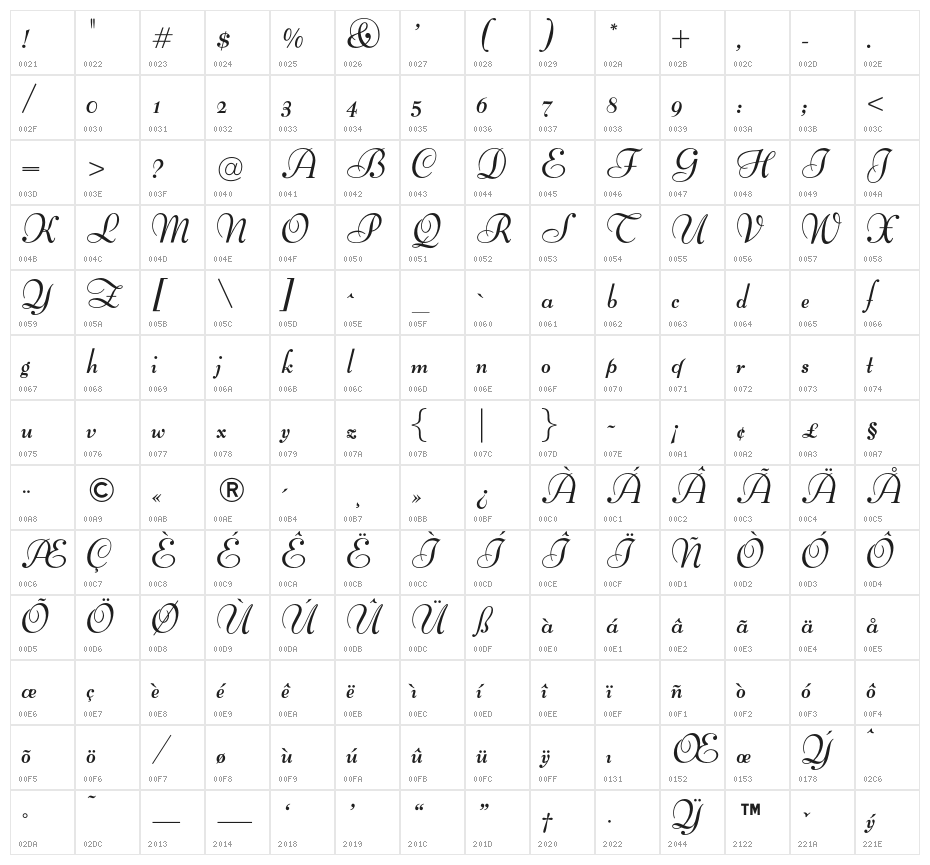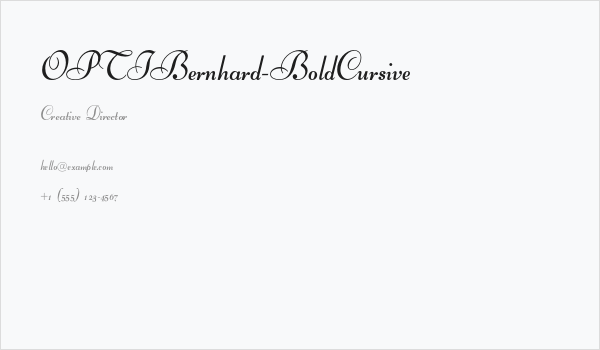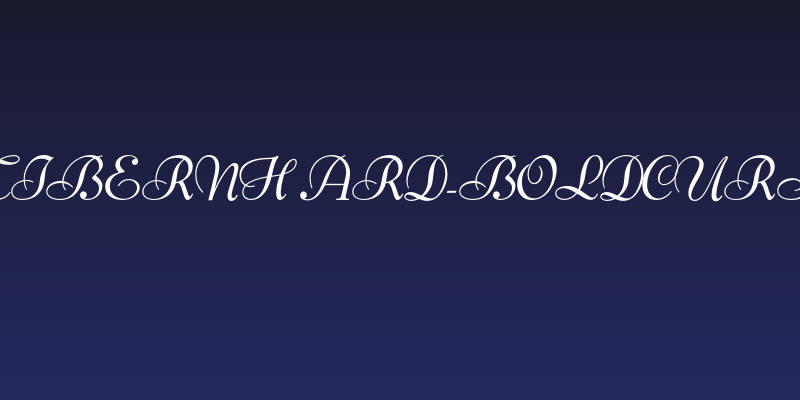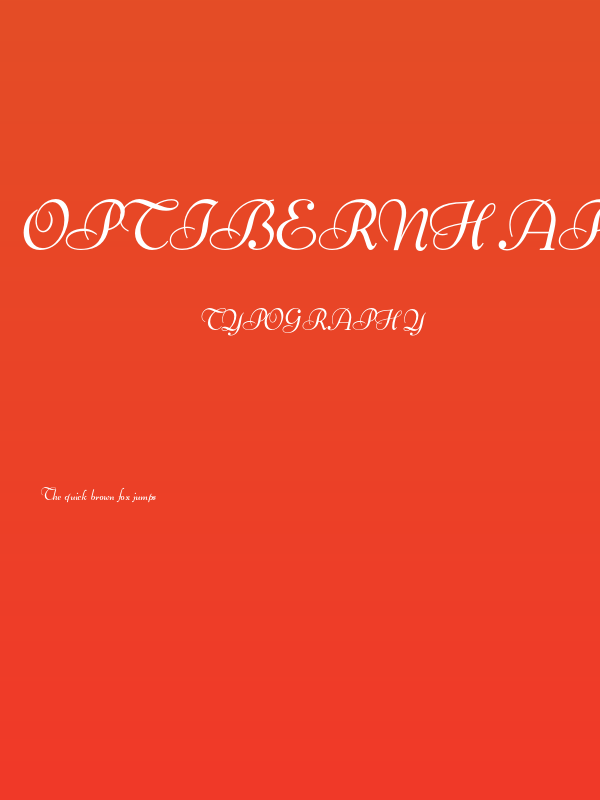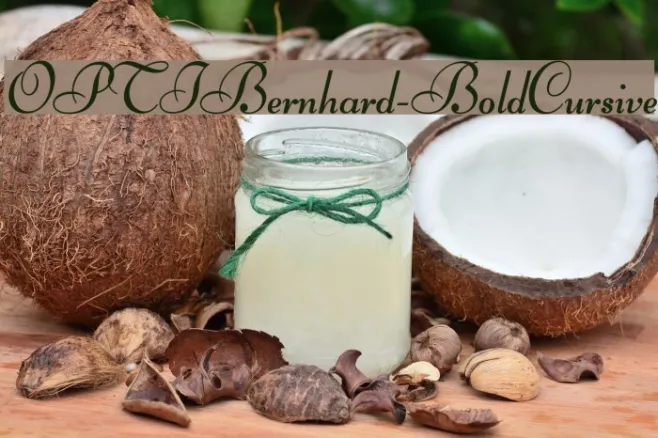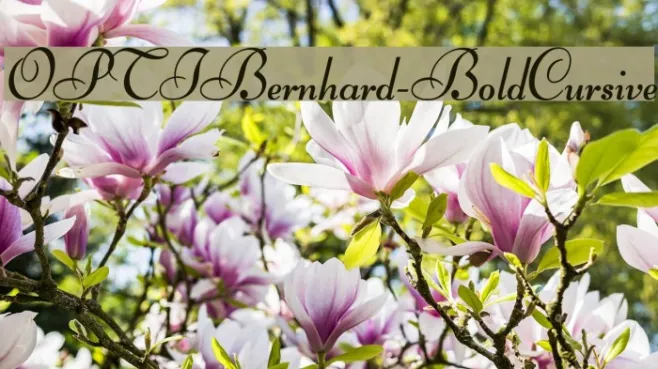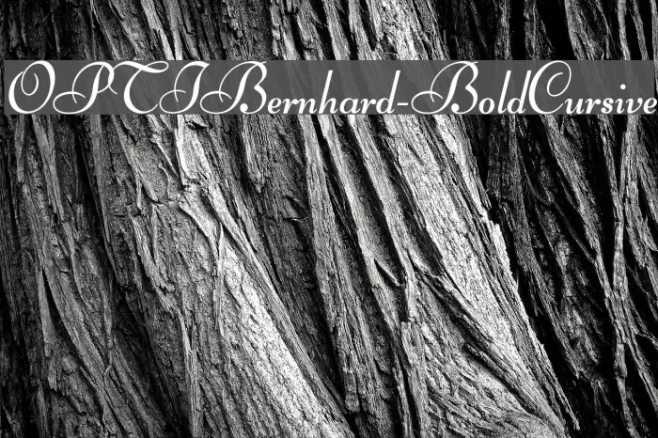
OPTIBernhard-BoldCursive Font
OPTIBernhard-BoldCursive Description
This elegant cursive font features a flowing, script-like style with a bold presence. The uppercase letters are characterized by their intricate loops and swirls, giving them a sophisticated and decorative appearance. The lowercase letters maintain a consistent flow, with smooth connections between characters, enhancing readability while preserving the font's ornate nature. The numerals are styled to match the cursive theme, with subtle curves and a balanced weight. Special characters are designed with the same attention to detail, ensuring a cohesive look across all glyphs. This font exudes a classic charm, making it suitable for formal and decorative applications.
| Proposed Projects | Ideal for wedding invitations, elegant branding, luxury packaging, and decorative headlines. |